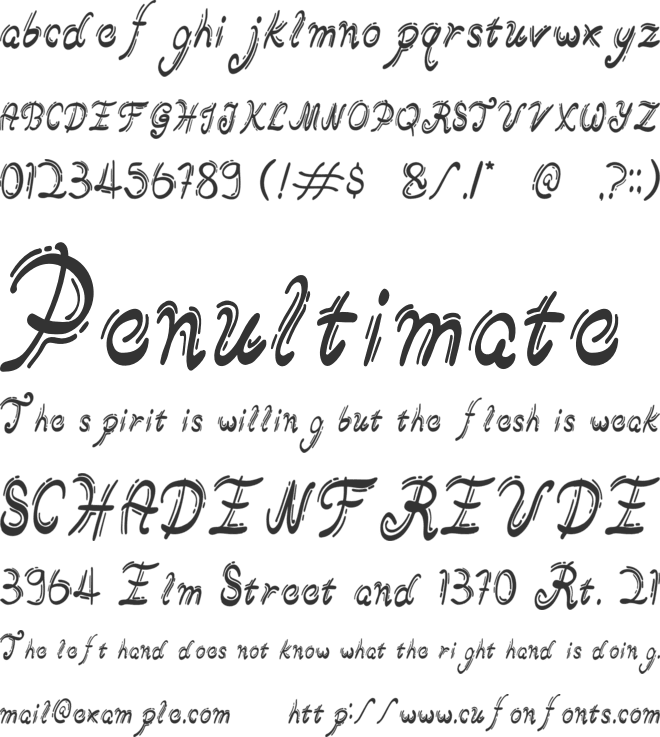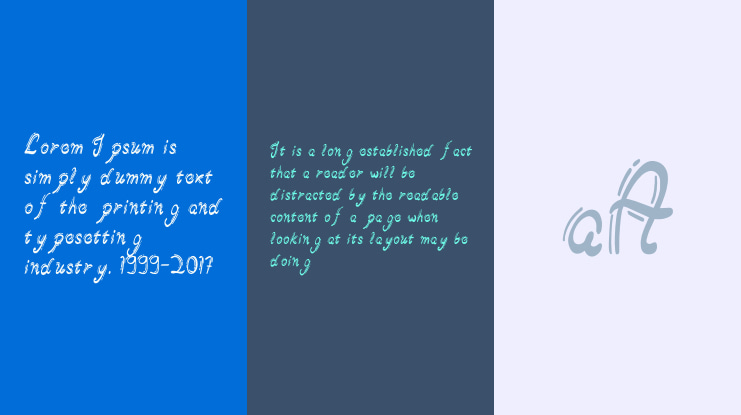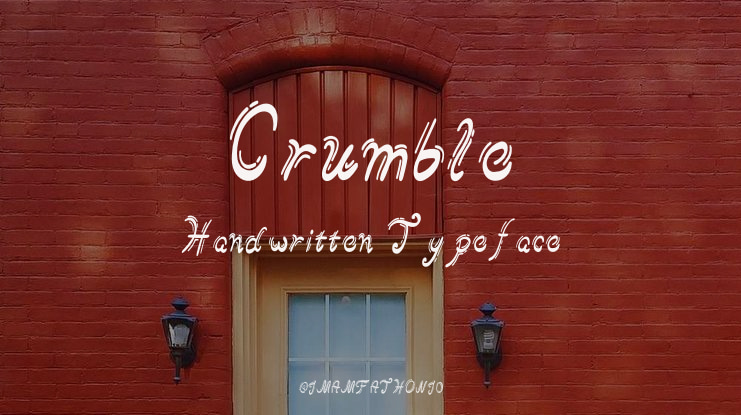
Crumble Handwritten Font
Crumble Handwritten is a playful handwritten script with loose, bouncy strokes and an irregular rhythm. Its wobbly letterforms and casual energy give packaging, kids' products, and social graphics a warm, homemade charm. The rounded, uneven characters feel spontaneous and fun, like handwriting scrawled with a smile.